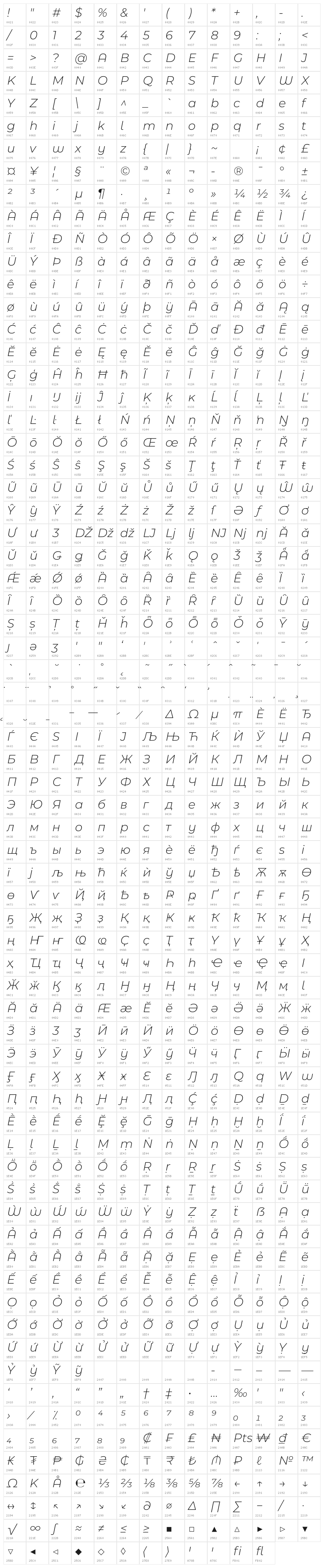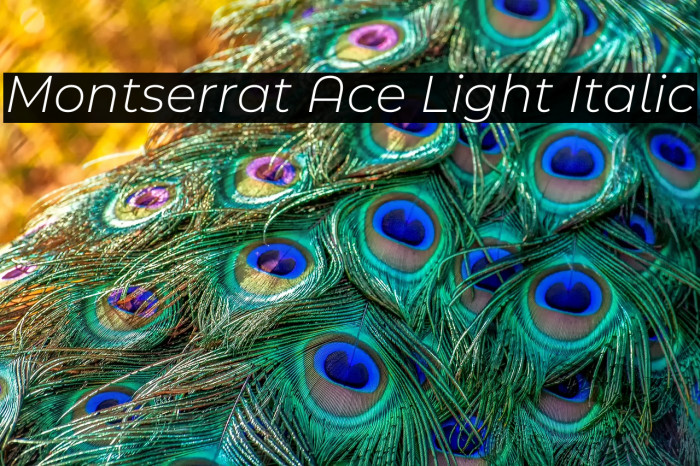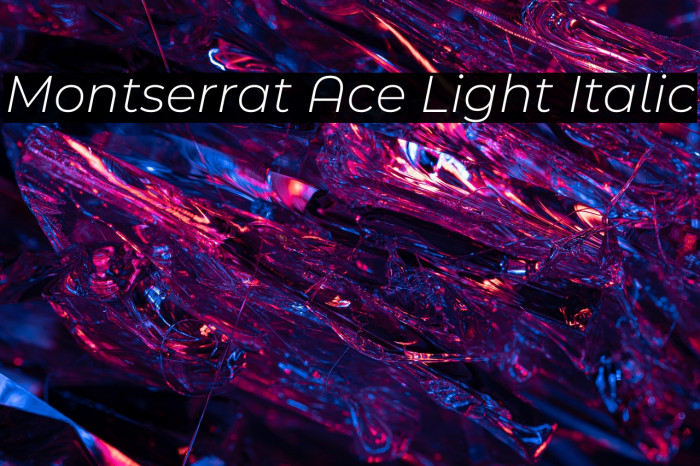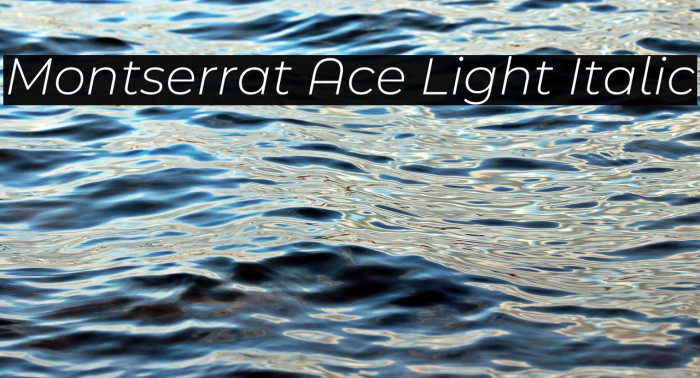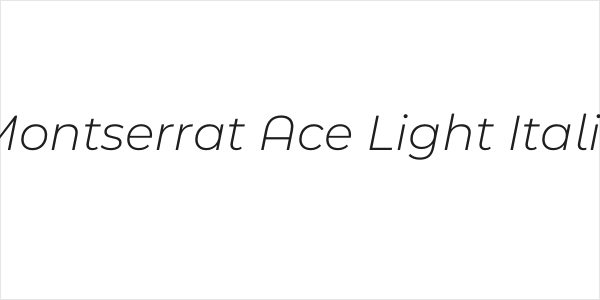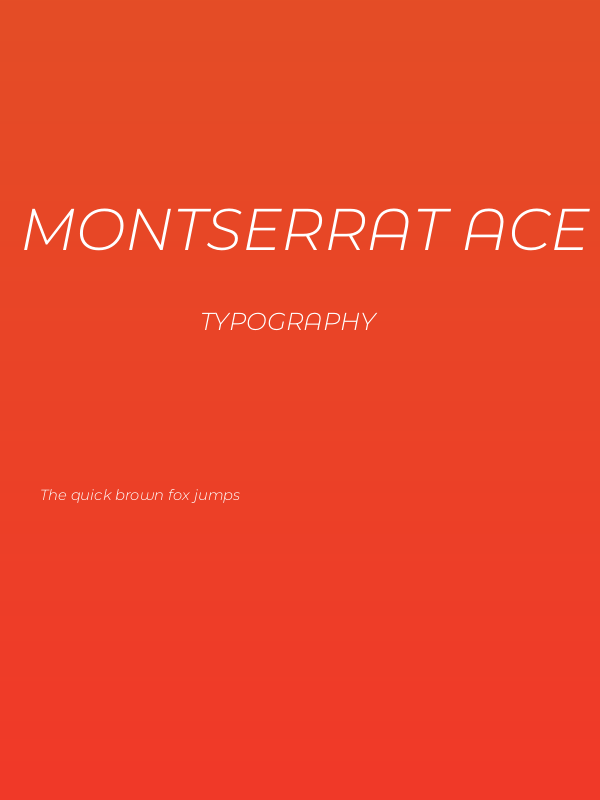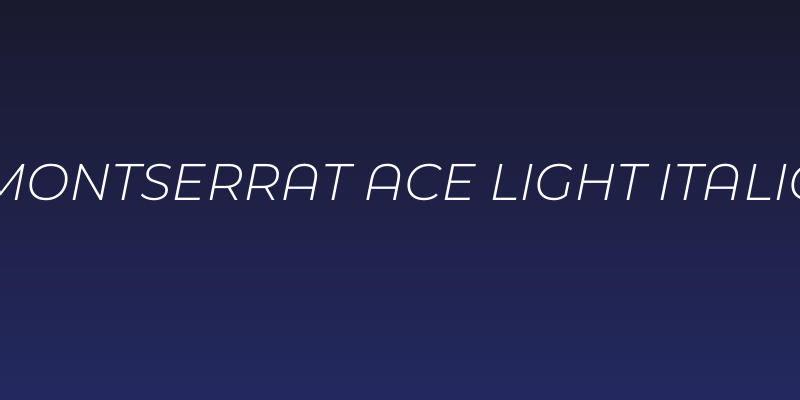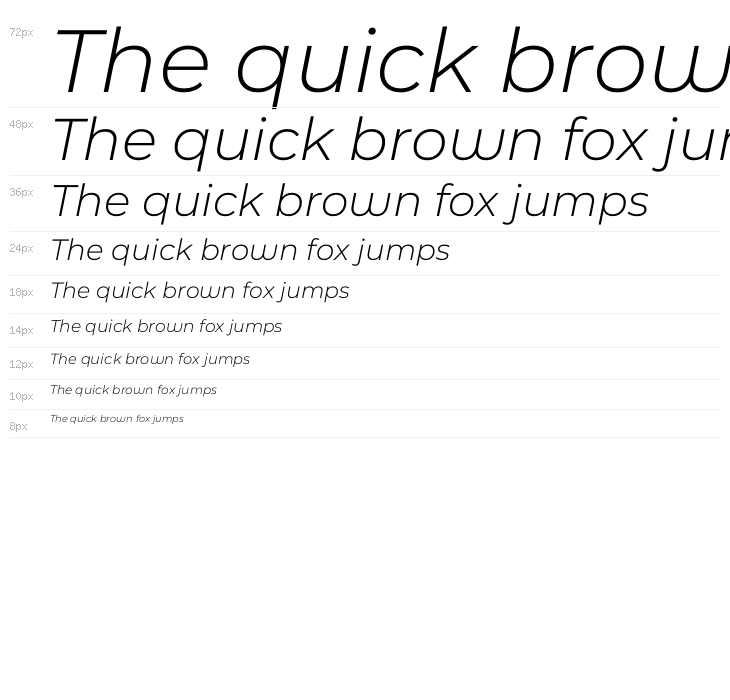
Montserrat Ace Light Italic Font
Montserrat Ace Light Italic Description
This font features a clean and modern design with a light weight and italic style. The characters are sleek and slightly elongated, giving a sense of elegance and sophistication. The font maintains a consistent stroke width throughout, contributing to its minimalist aesthetic. The spacing between characters is normal, allowing for readability while maintaining a stylish appearance. Its geometric shapes and smooth curves make it suitable for contemporary design projects.
| Proposed Projects | Ideal for branding, editorial design, and digital interfaces where a modern and elegant touch is desired. |